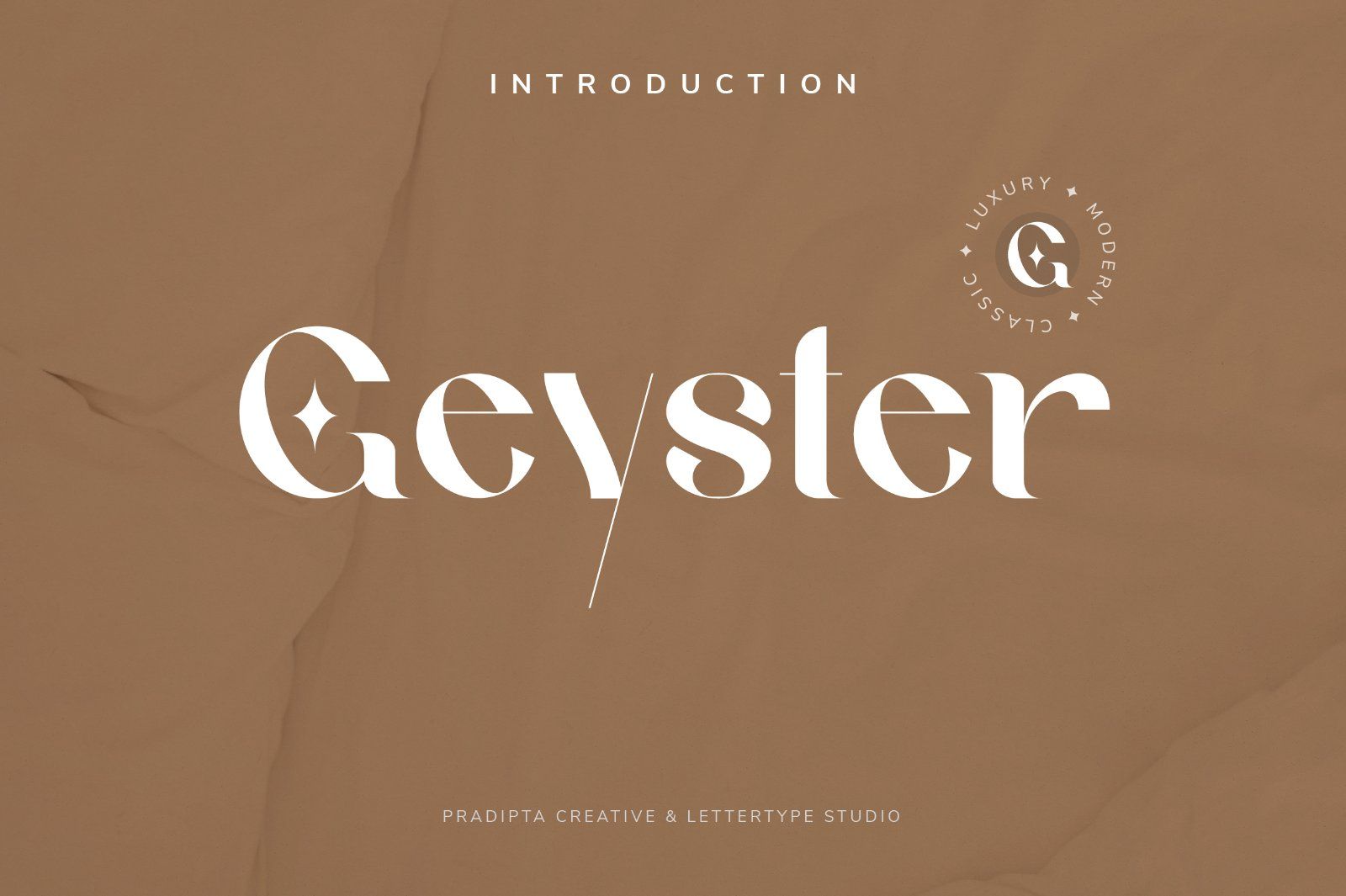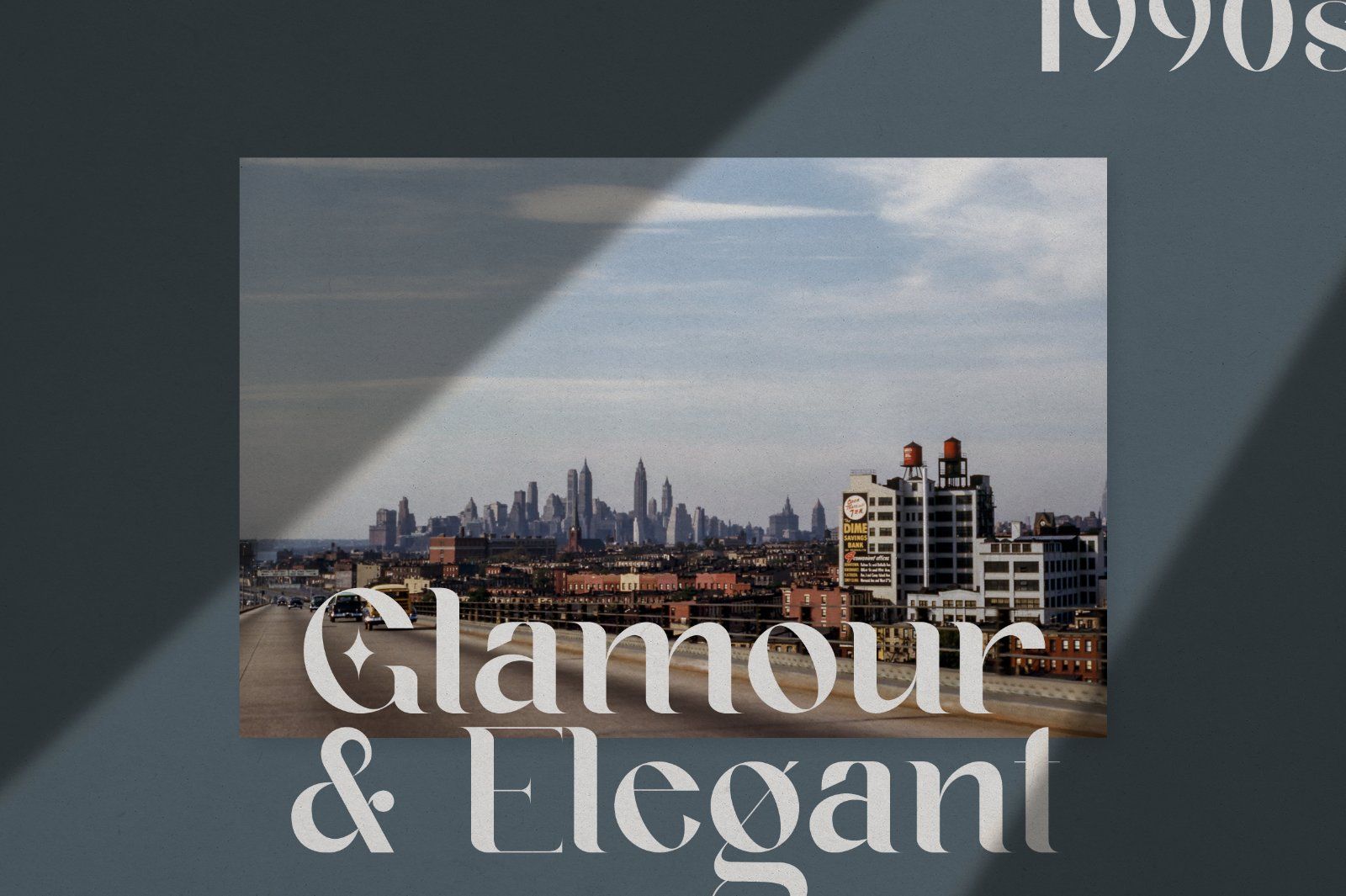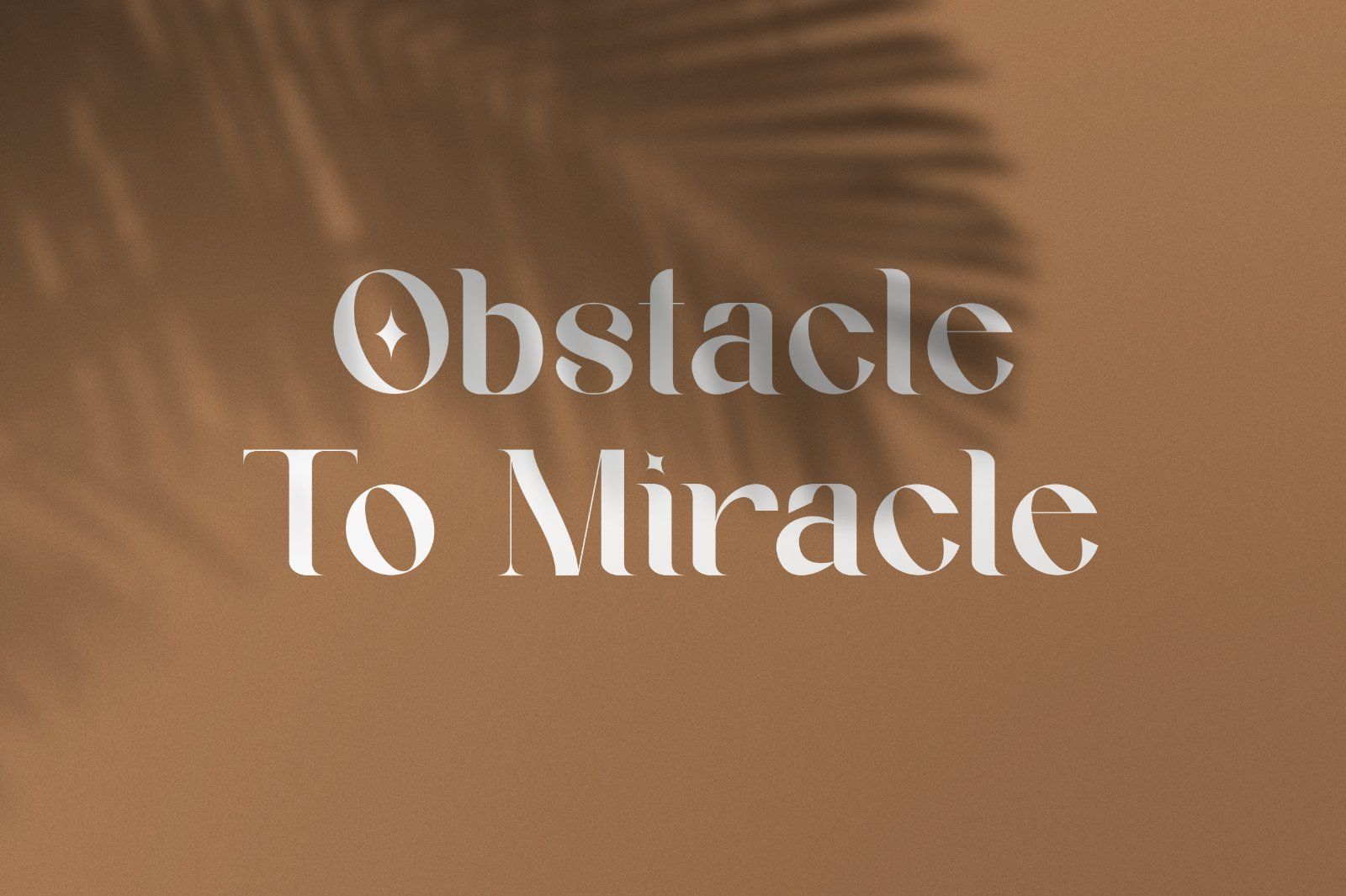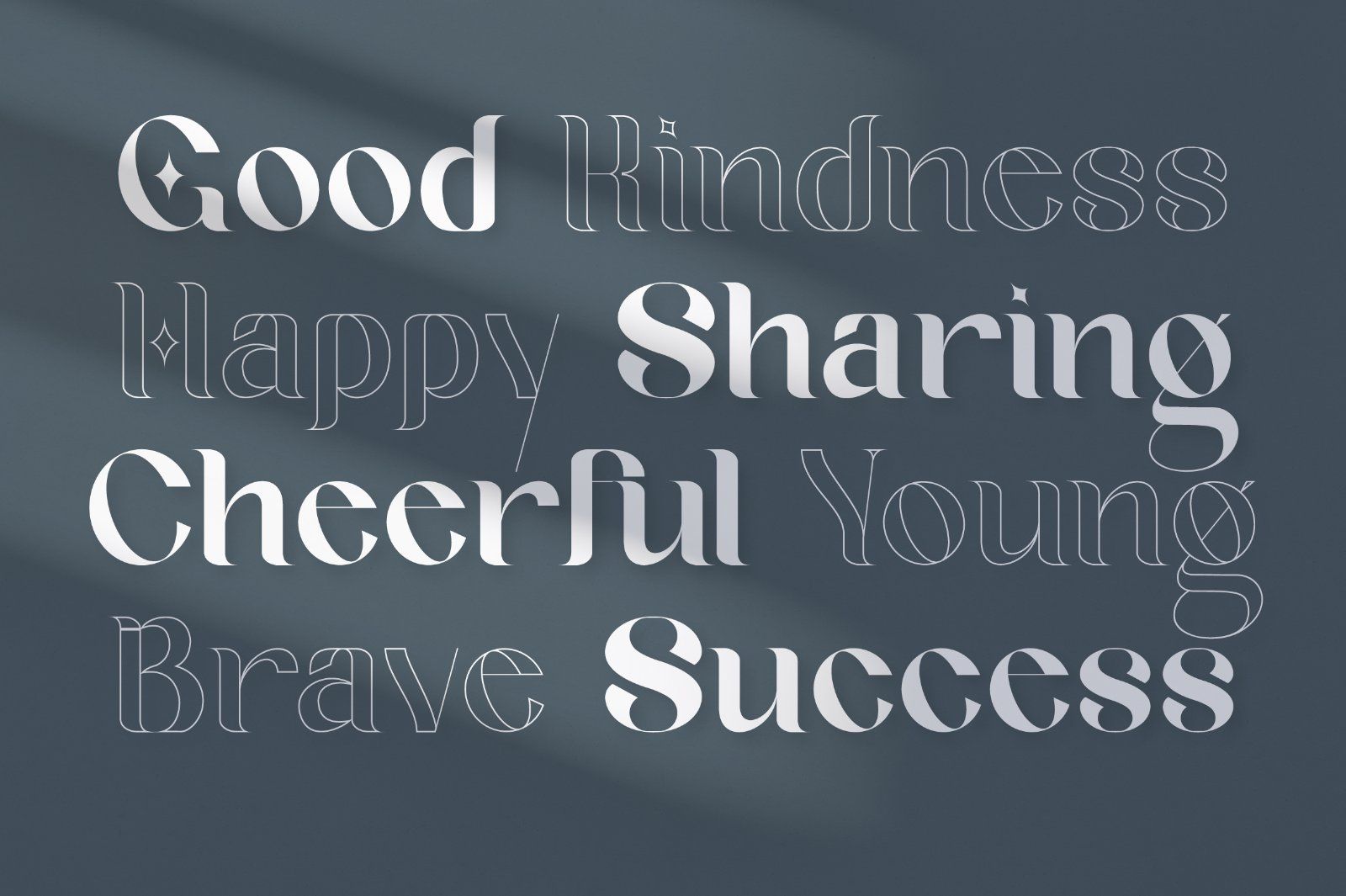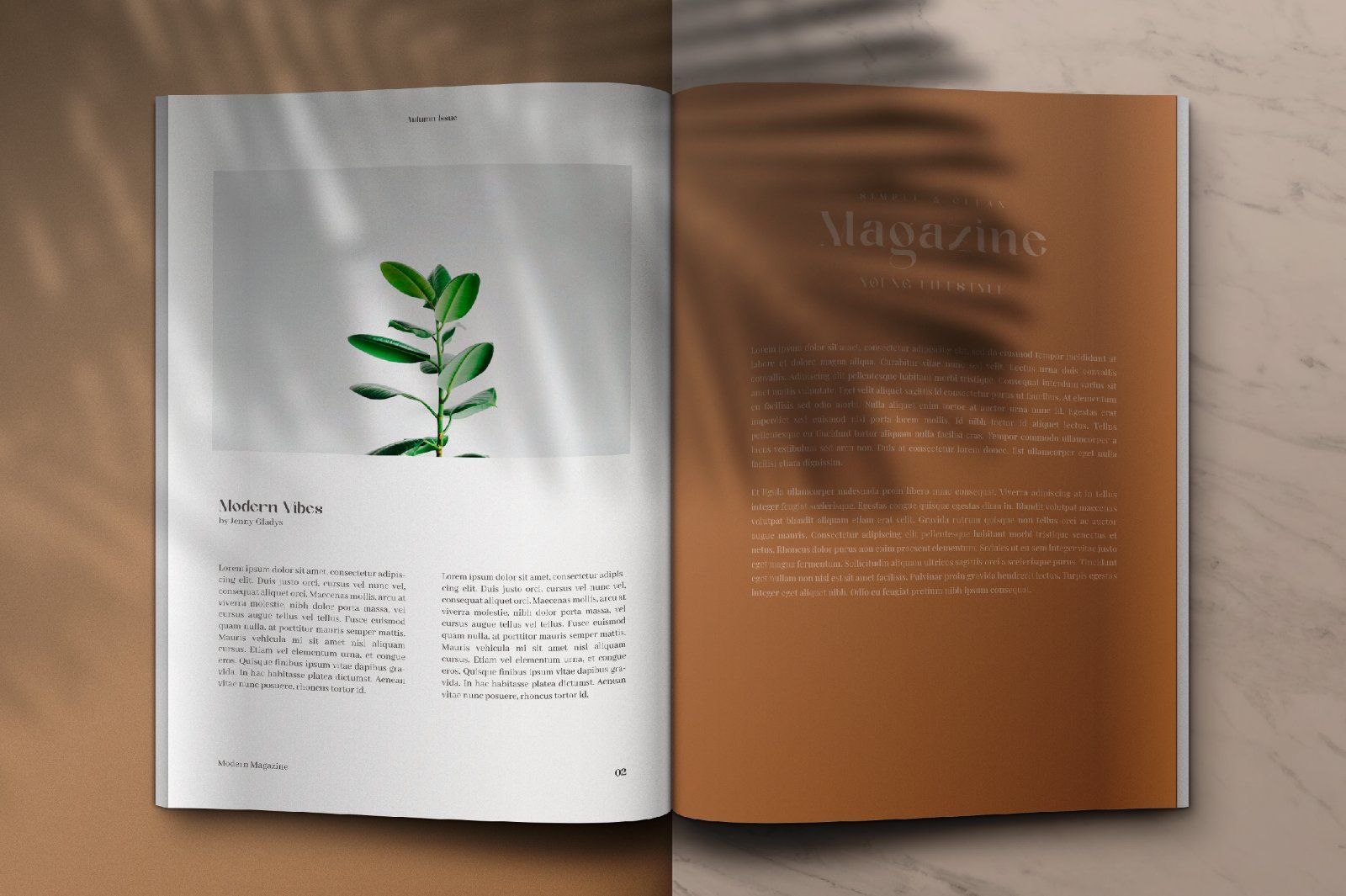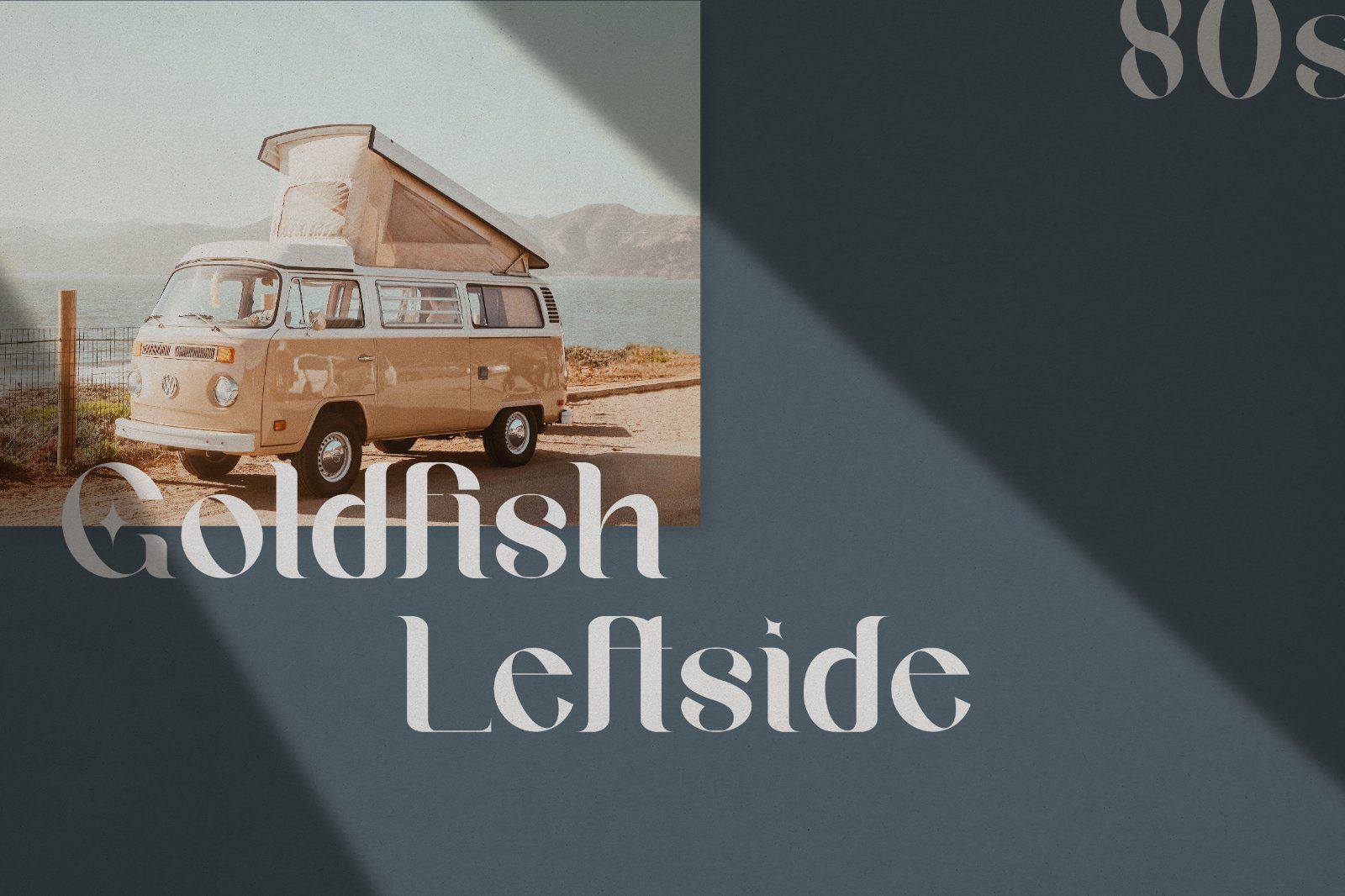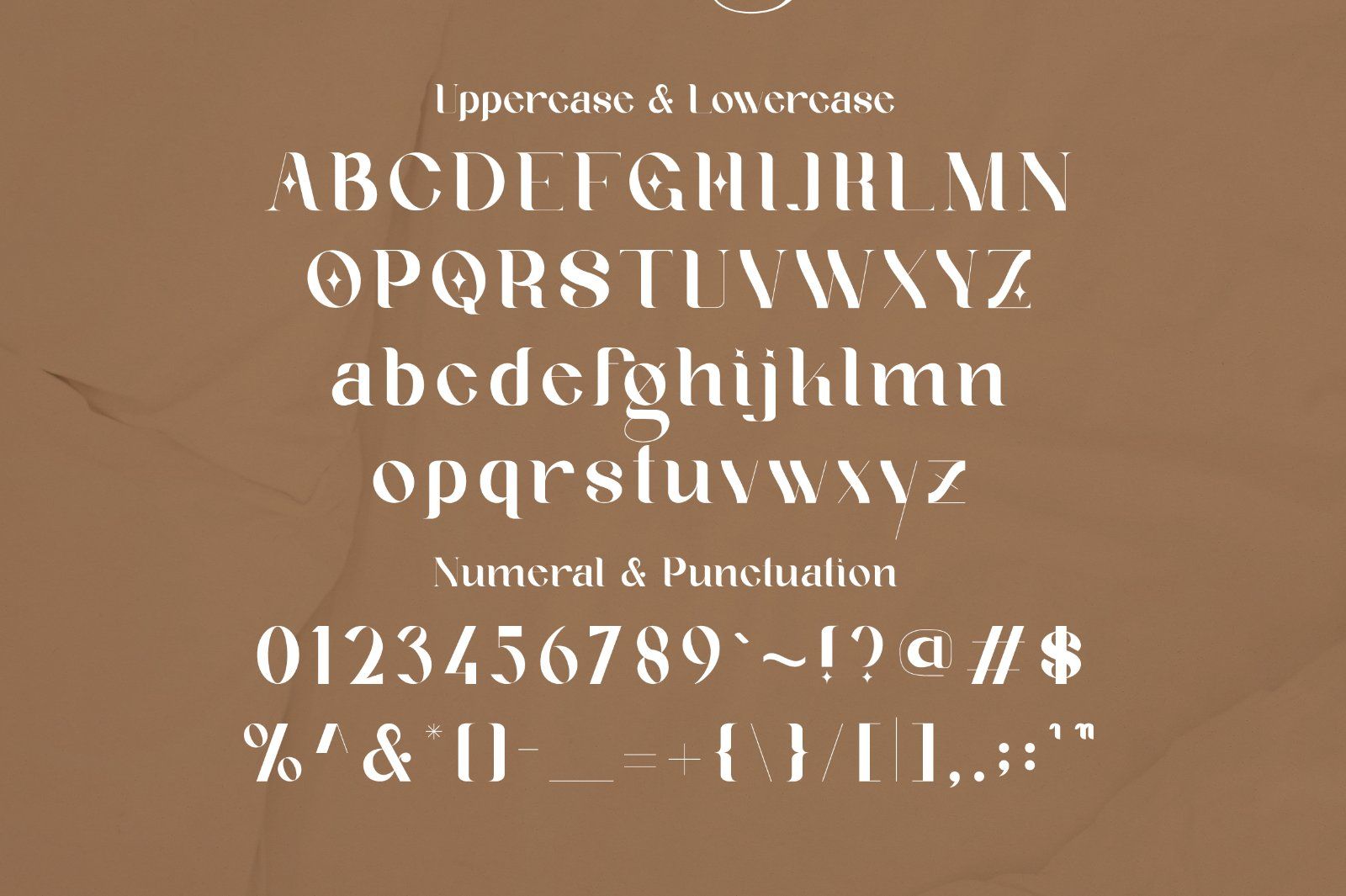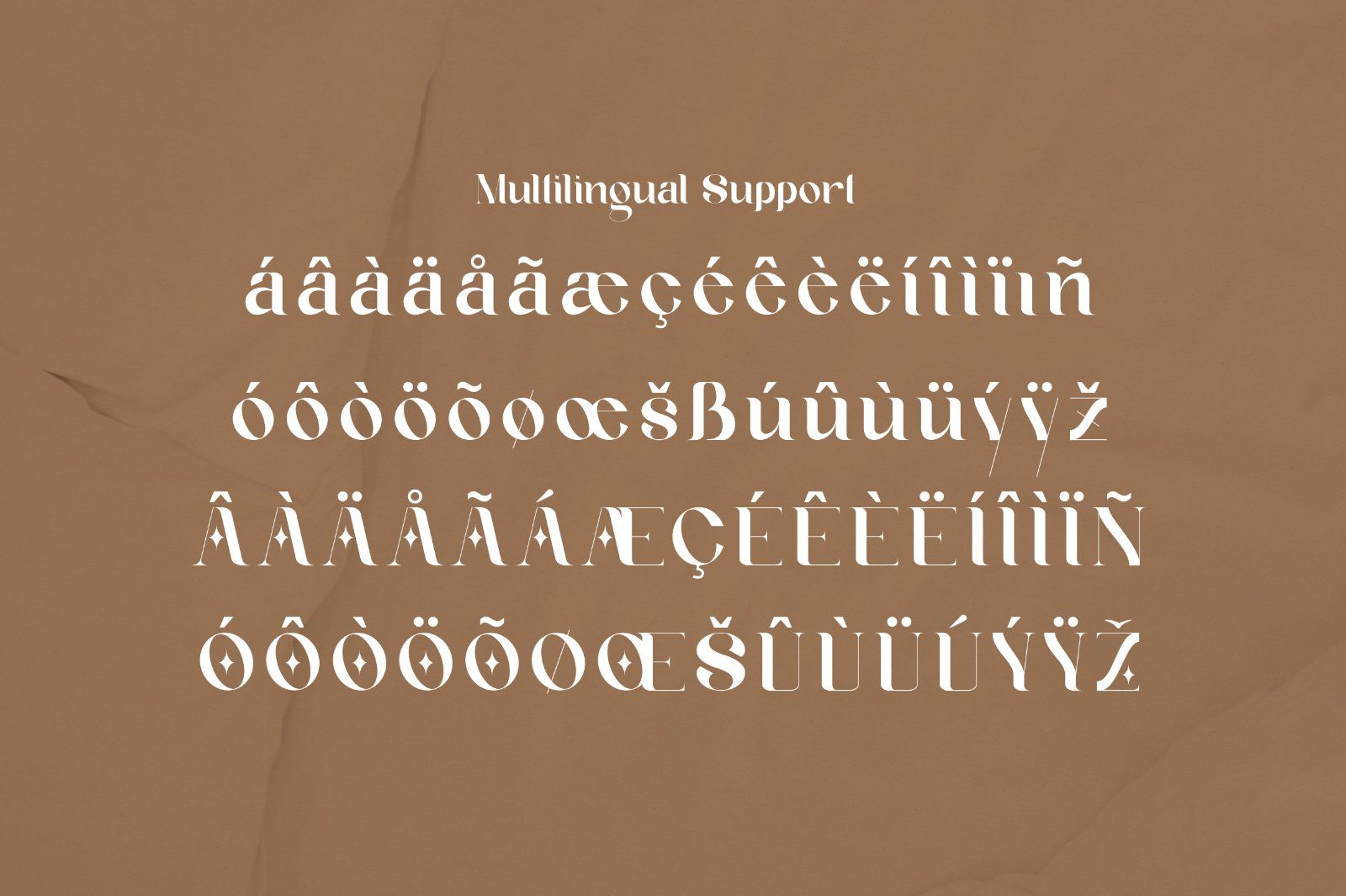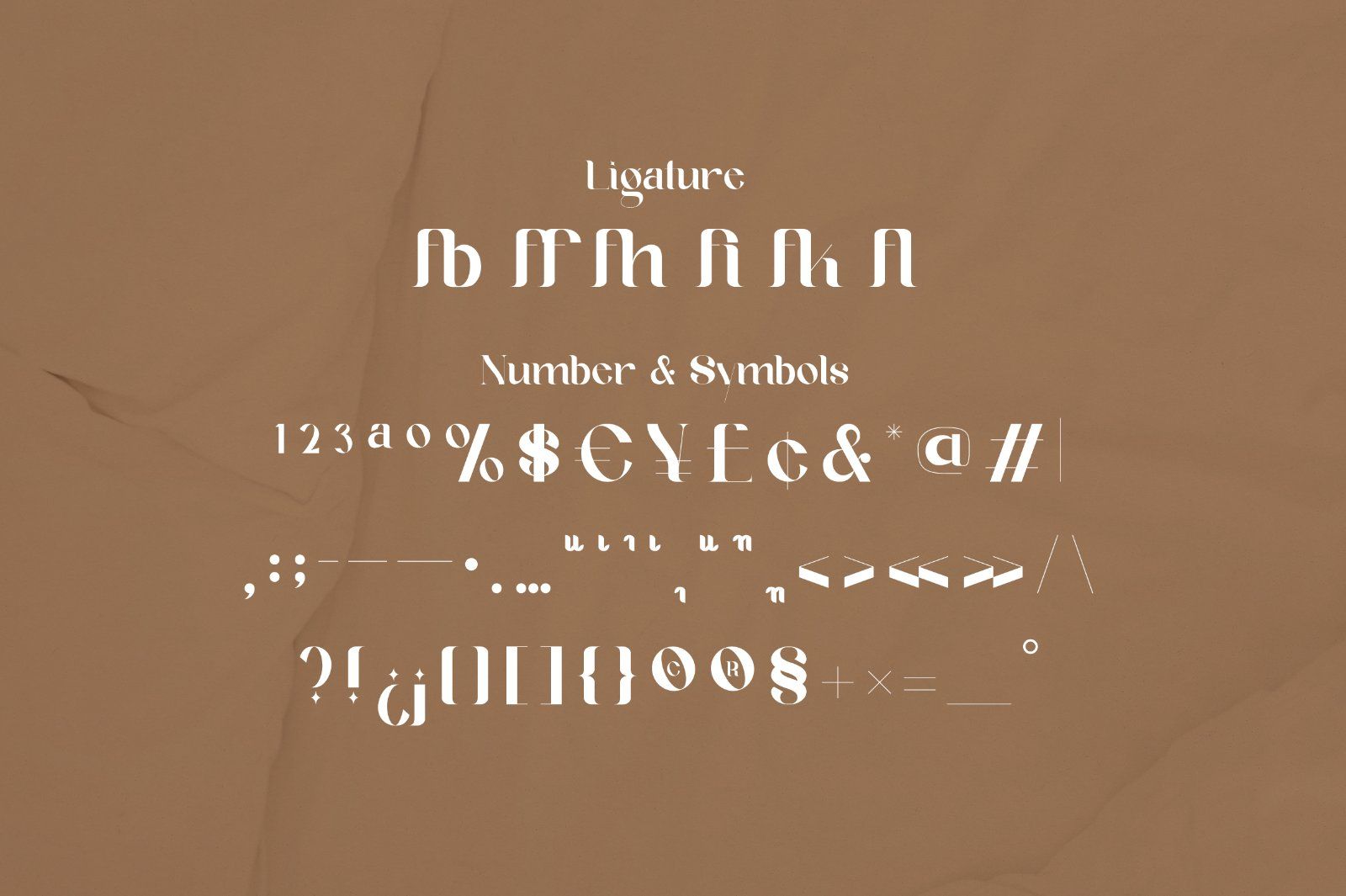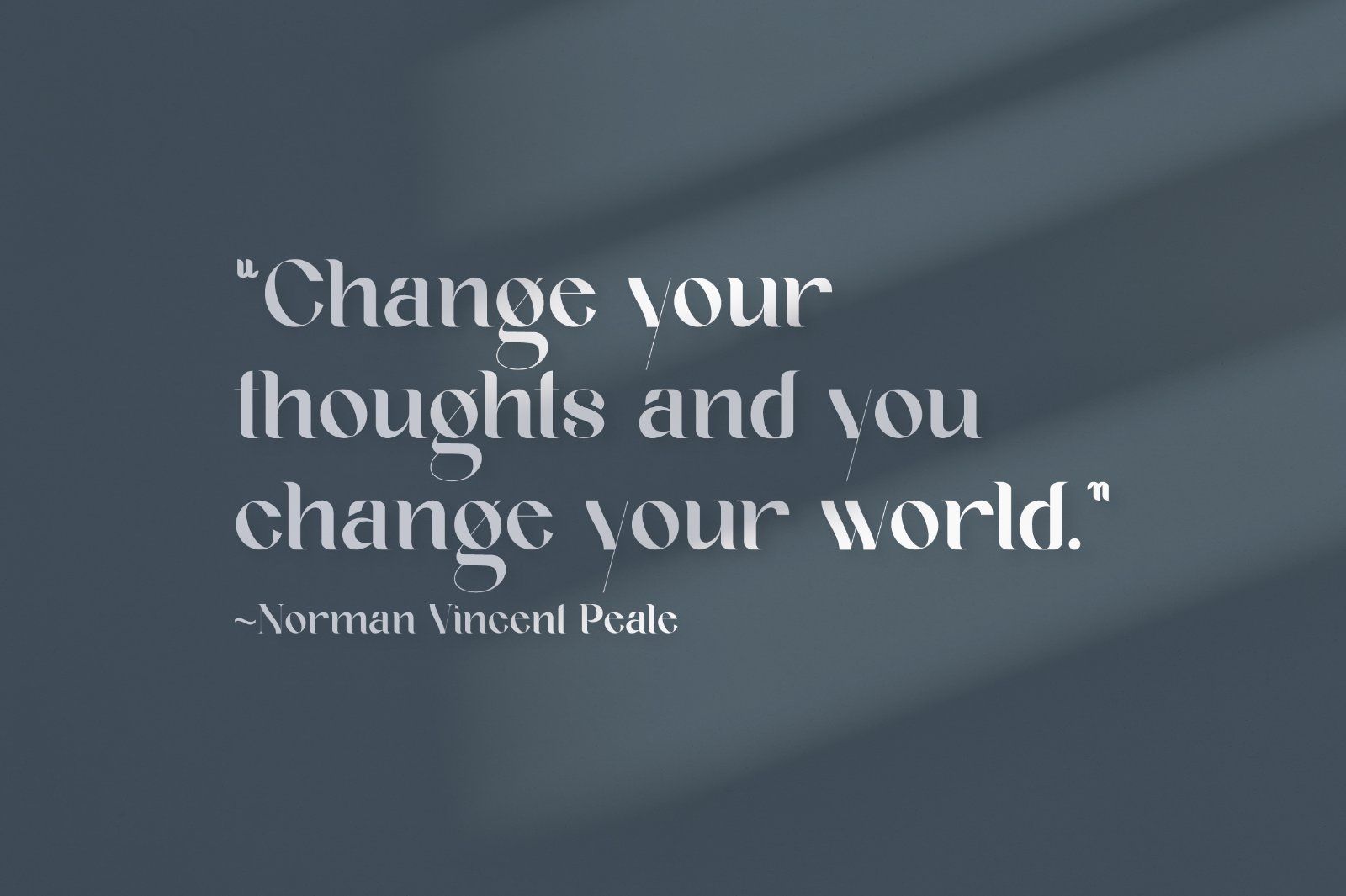
Geyster Serif is a modern, classic or vintage font. This font will be perfect for logo design, branding, clothing, signage, posters, wedding invitations and so much more! My goal in creating this font was to create a mix of serif fonts with modern and classic styles, which will help your project to be more perfect and beautiful. Don't Miss Out!
Geyster Comes With:
• Lowercase and Uppercase
• Stylistic Ligature
• Accented characters
• Geyster Font Style (3 style, Regular, Italic, & Outline)
• Multiple Languages Supported